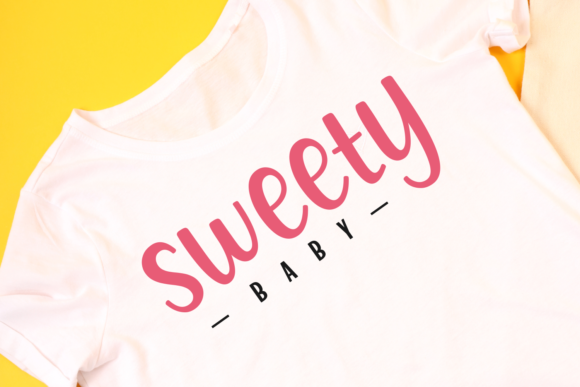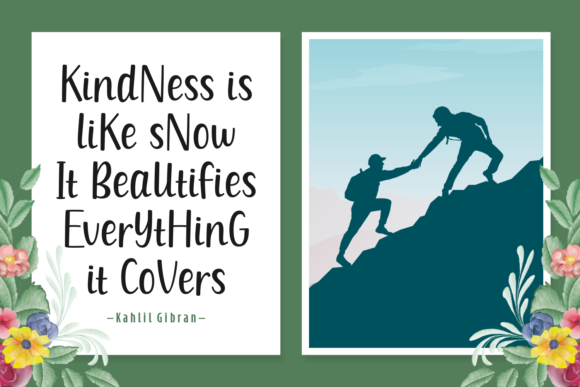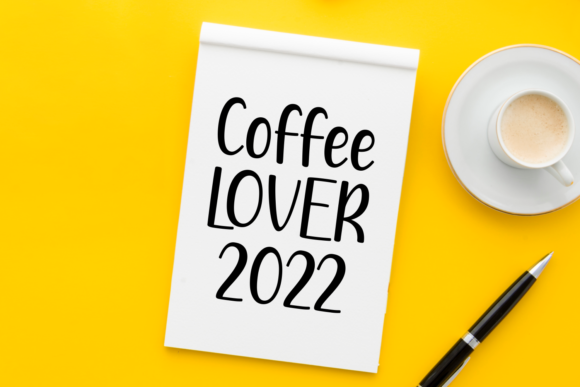
The Beauty of Handwritten Fonts: A Deep Dive into Beautiful Mandala
I’ll never forget the time I was working on a wedding invitation project, and my client asked me to create a custom logo that exuded elegance and sophistication. I spent hours scouring the internet for the perfect font, only to come up empty-handed. That’s when I stumbled upon Beautiful Mandala, a simple yet elegant handwritten font that stole my heart. In this article, I’ll share my love for this beautiful font, its features, and how to make the most of it in your designs.
An Honest Review of Beautiful Mandala
Beautiful Mandala is a versatile font that has become a staple in my design toolkit. Here’s what I love about it:
- ✨ Elegant and sophisticated feel, perfect for high-end branding and wedding designs
- 🌈 Beautifully crafted to add a touch of personality to any design
While Beautiful Mandala is an excellent font, it’s not without its quirks:
- 🤔 Limited character set, which may not be suitable for designs requiring a wide range of special characters
- ⚠️ May not work well with bold or italic styles, which can affect its elegance
- Experiment with OpenType features, such as ligatures and stylistic alternates, to add personality to your design
- Explore the font’s glyphs and OpenType features to create unique and stunning designs
The Story Behind Beautiful Mandala
Beautiful Mandala was crafted with love by a talented type designer who aimed to create a font that exudes elegance and sophistication. Inspired by traditional mandalas and the beauty of handwritten scripts, this font is a testament to the power of typography in design.
| What is the best use for Beautiful Mandala? | Beautiful Mandala is perfect for creating signature logos, watermarks, wedding invitations, and more. |
| Is Beautiful Mandala suitable for body text? | While Beautiful Mandala is highly legible, it’s best suited for headings and titles. For body text, consider using a more traditional font. |
In conclusion, Beautiful Mandala is a stunning handwritten font that can elevate your designs to the next level. With its elegant feel, high legibility, and versatility, it’s perfect for a range of creative projects. Whether you’re a designer, crafter, or hobbyist, Beautiful Mandala is sure to become a favorite in your toolkit.